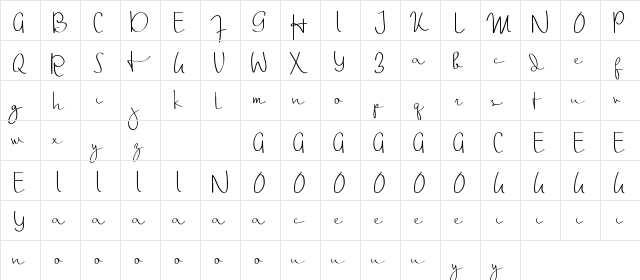
Thalia Hillary Demo Script Regular
Design Context for Thalia Hillary Demo Script Typeface
Thalia Hillary Demo Script flows with the natural rhythm of handwritten lettering, making it ideal for designs that call for warmth and personal expression.
Font Pairing: Combine Thalia Hillary Demo Script with a simple geometric sans for maximum contrast — the tension between flowing curves and clean structure is a classic typographic pairing.
Pro Tip: Pair Thalia Hillary Demo Script with a clean sans-serif for supporting text. The contrast between fluid script and geometric structure creates an elegant typographic hierarchy.